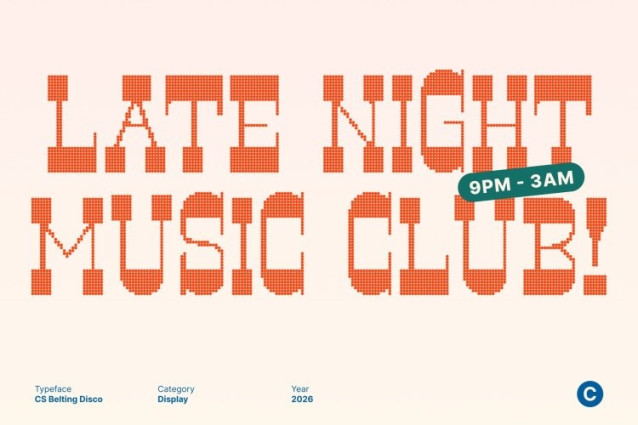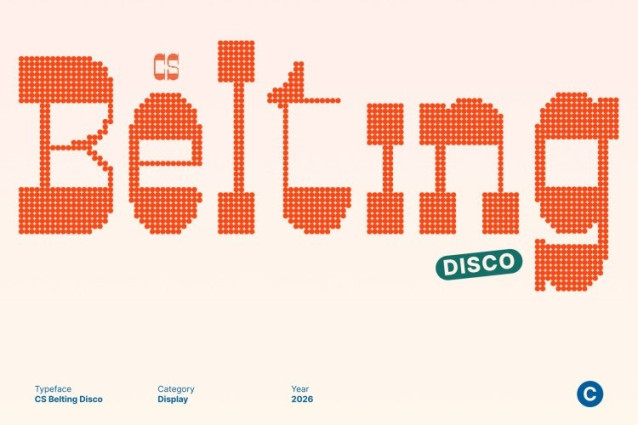
CS Belting Disco Font This is a bold western display font that fuses the untamed spirit of the Wild West with vibrant disco flair. Rooted in classic frontier signage and reverse-contrast inspiration, its rugged construction is elevated with a glamorous, high-energy attitude transforming cowboy grit into a bold statement that’s ready for the spotlight.
Slab Serifs with Bold, Show-Stopping Presence
The font’s wide letterforms and slab-like serifs deliver a sturdy, commanding structure that feels powerful and confident. These strong proportions ensure excellent visibility, while the disco styling adds visual rhythm and shine, giving the font a lively presence that stands out both in vintage-inspired layouts and modern party visuals.
Rugged Character with Festive Attitude
While maintaining its rough, western toughness, this font introduces a playful, celebratory edge. The combination of cowboy grit and disco energy creates a unique contrast masculine yet expressive, nostalgic yet vibrant. It’s perfect for designs that want to feel bold, adventurous, and unapologetically fun.
Perfect for Western Themes, Events, and Statement Branding
This font shines in posters, logos, packaging, and branding that demand personality and impact. Ideal for festival graphics, themed parties, nightlife concepts, apparel, whiskey labels, and retro-inspired campaigns, this font brings frontier heritage to life with a glamorous, energetic twist that’s impossible to ignore